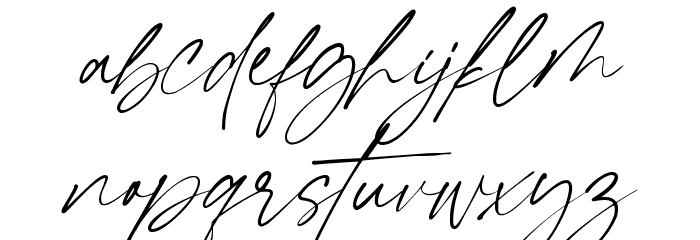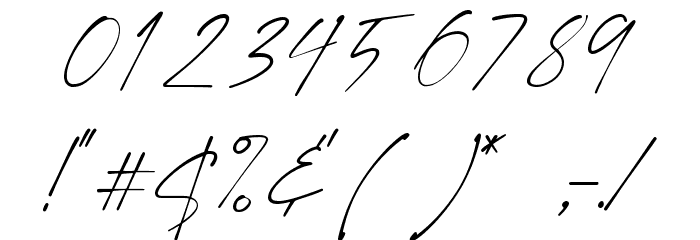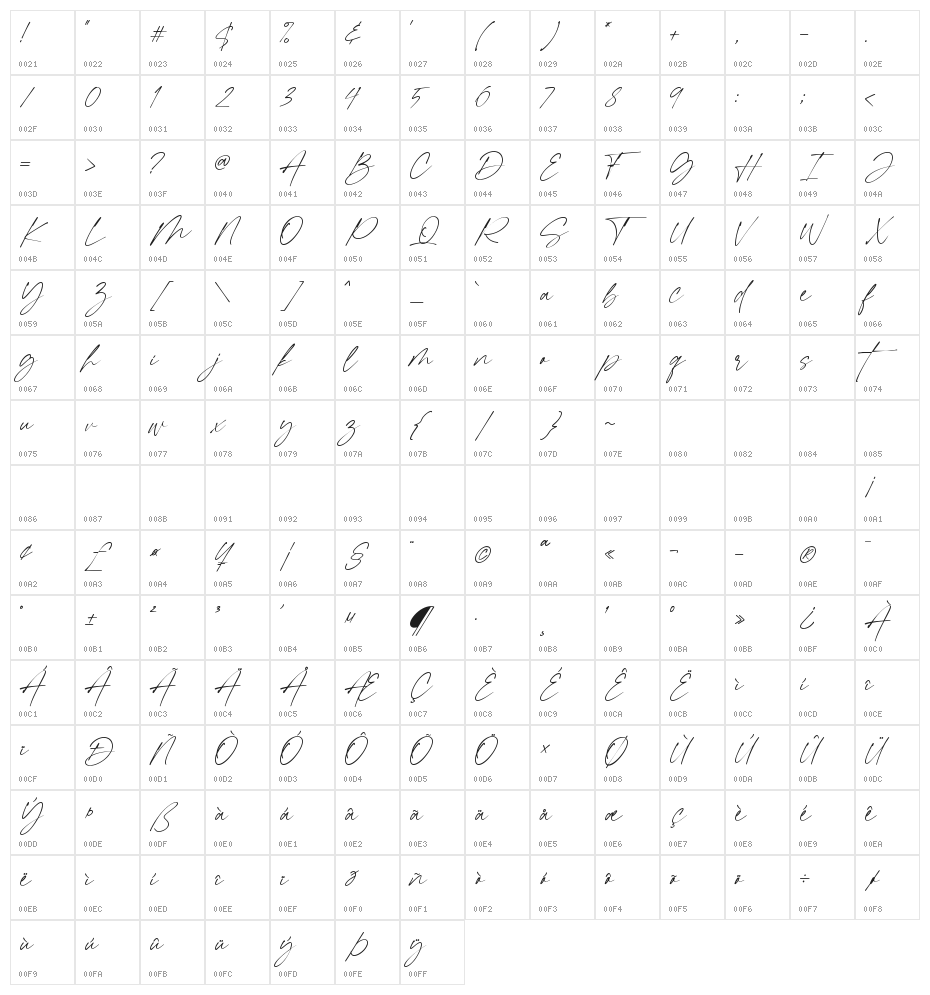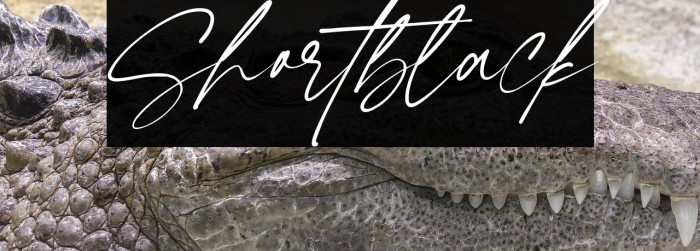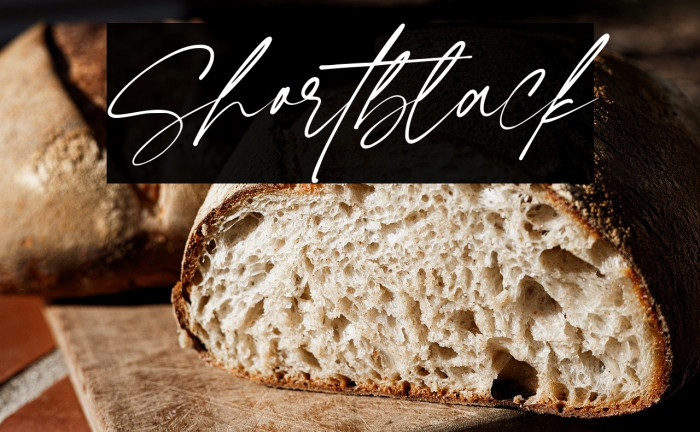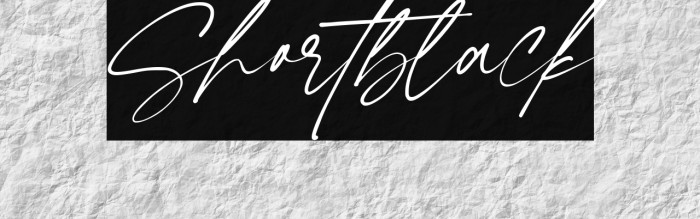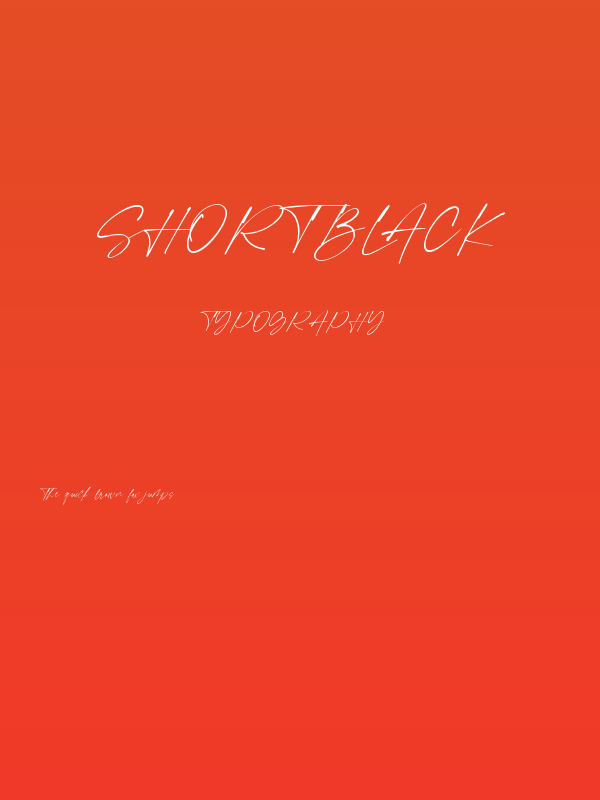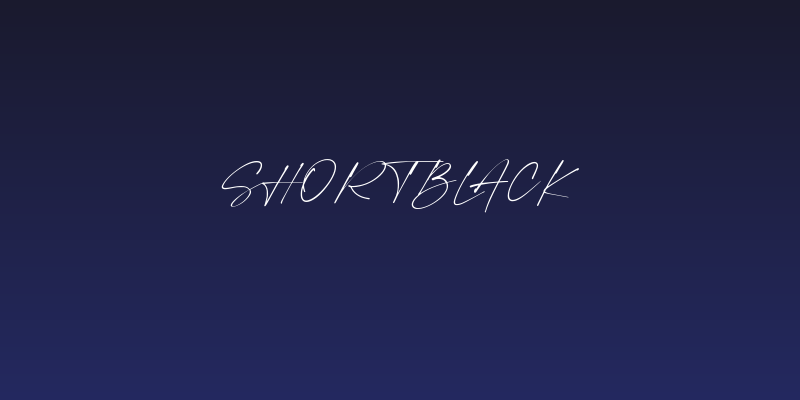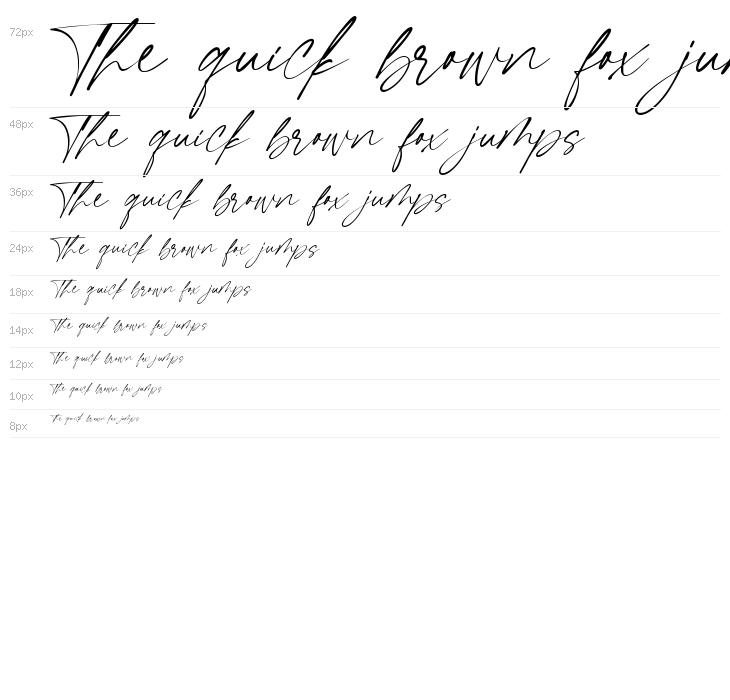
Shortblack Font
This font exudes a dynamic and fluid style, characterized by its elegant, cursive script. The letters are interconnected with sweeping strokes that mimic the natural flow of handwriting. Each character is crafted with a sense of movement, giving the font a lively and expressive appearance. The uppercase letters are bold and prominent, while the lowercase letters maintain a consistent rhythm and balance. The numerals and special characters are designed to complement the overall aesthetic, ensuring a cohesive look across all elements. This font's distinctive style makes it ideal for projects that require a personal touch.
A dynamic, cursive script font with elegant, flowing strokes.
- Proposed Projects: Ideal for wedding invitations, personal branding, greeting cards, and artistic projects.
- Use Case: Logos, Invitations, Artistic projects